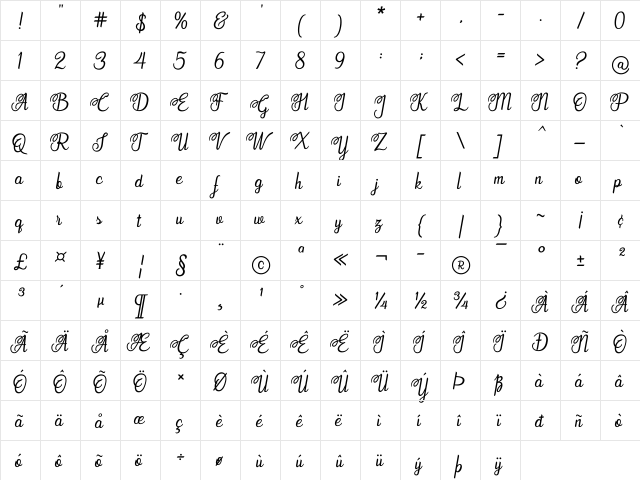
Elldier Regular
Design Context for Elldier Typeface
Elldier takes a measured approach to typography — its balanced proportions and neutral character make it a reliable workhorse for both digital and print work.